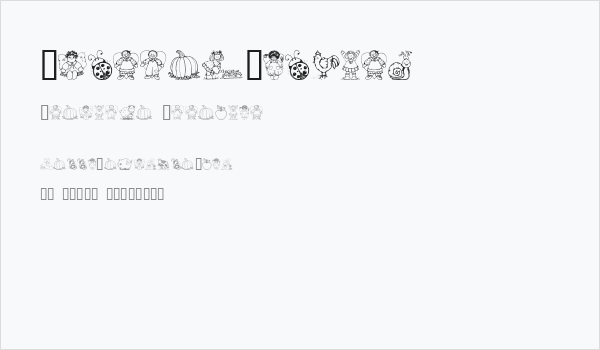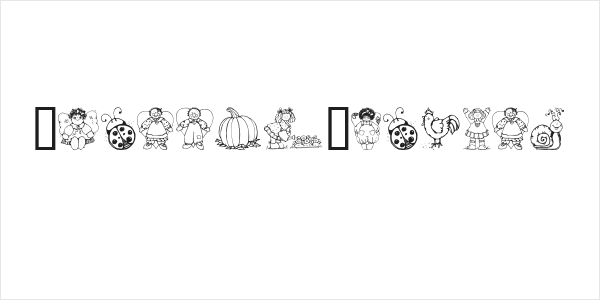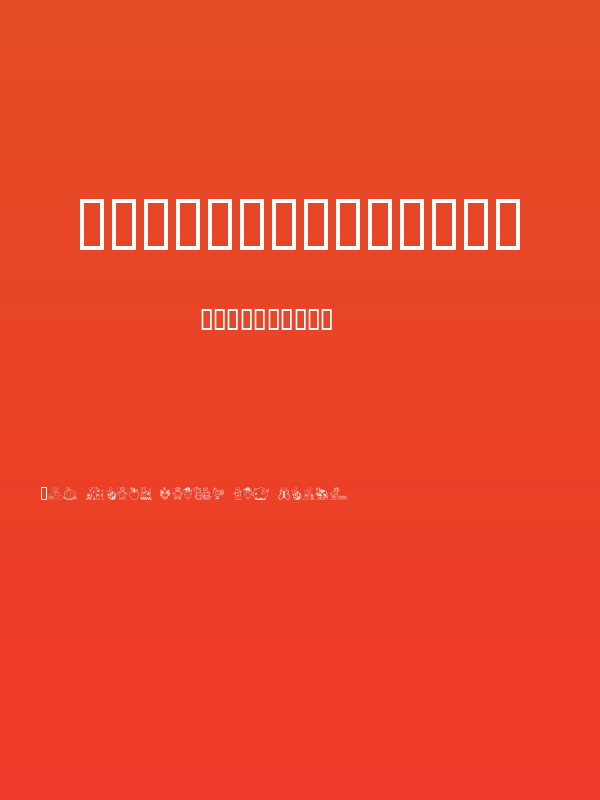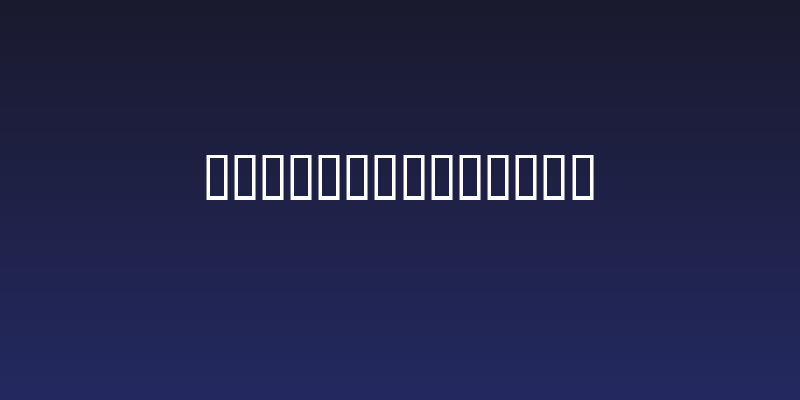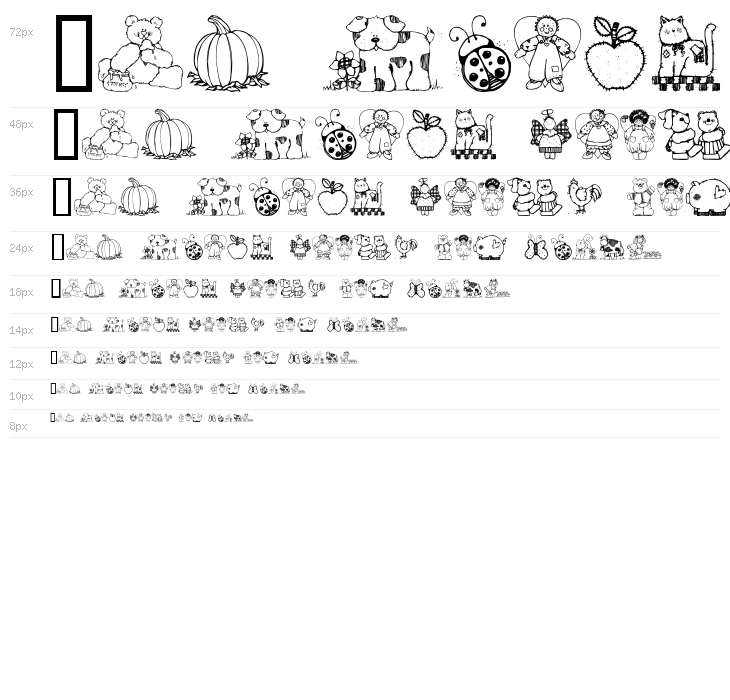
LauriesCountry Font
LauriesCountry Description
A decorative dingbat font featuring hand-drawn, country-themed illustrations such as animals, fruits, children, and seasonal objects. Each character is represented by a unique, whimsical sketch in a playful, cartoon-like style.
| Overall Style | Decorative, Whimsical, Country |
| Use Case | Decorative elements, Illustrations, Themed graphics |
| Proposed Projects | Children's books, scrapbooking, greeting cards, educational materials, craft projects. |